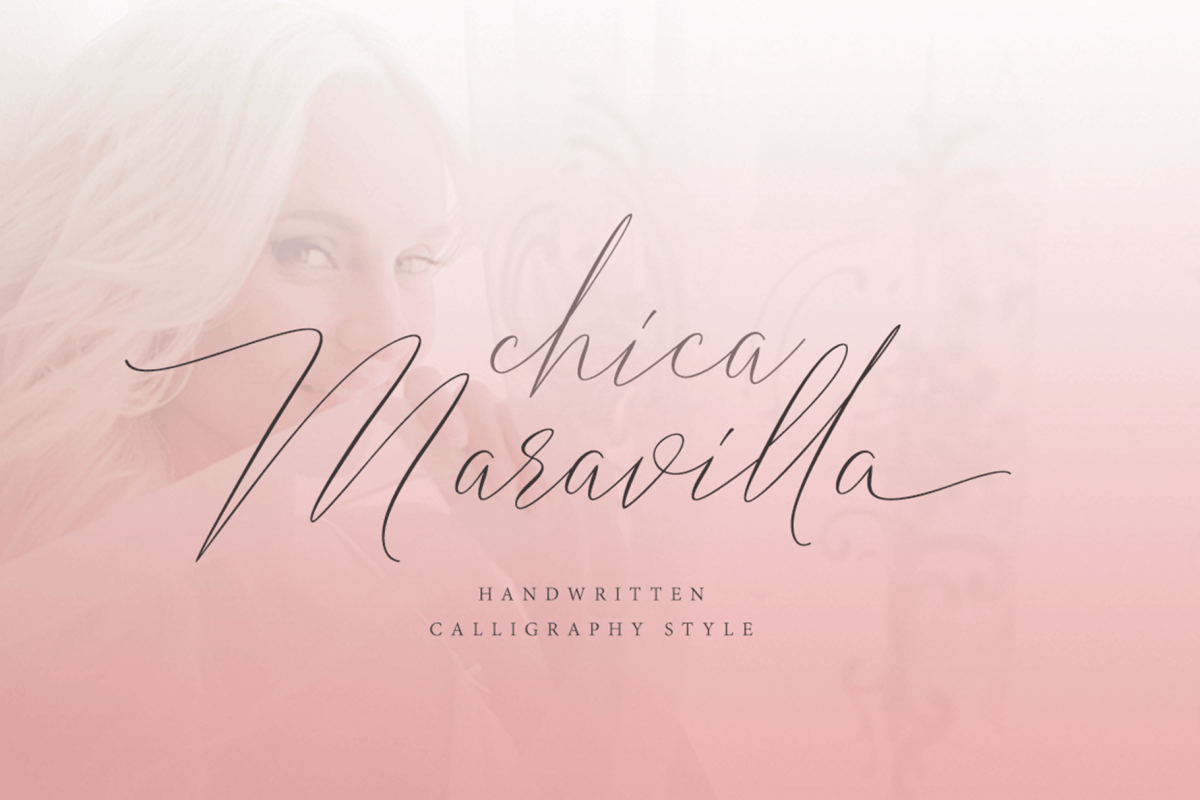
Chica Maravilla
Chica Maravilla a work that is purely a result of handwriting, has a natural characteristic. this is perfect for invitations, signatures, blogs, social media, business cards, product brands.Chica Maravilla has Stylistic standard, Stylistic Alternates and ligatures. and includes uppercase and lowercase letters, numbers and punctuation marks.FILE INCLUDE